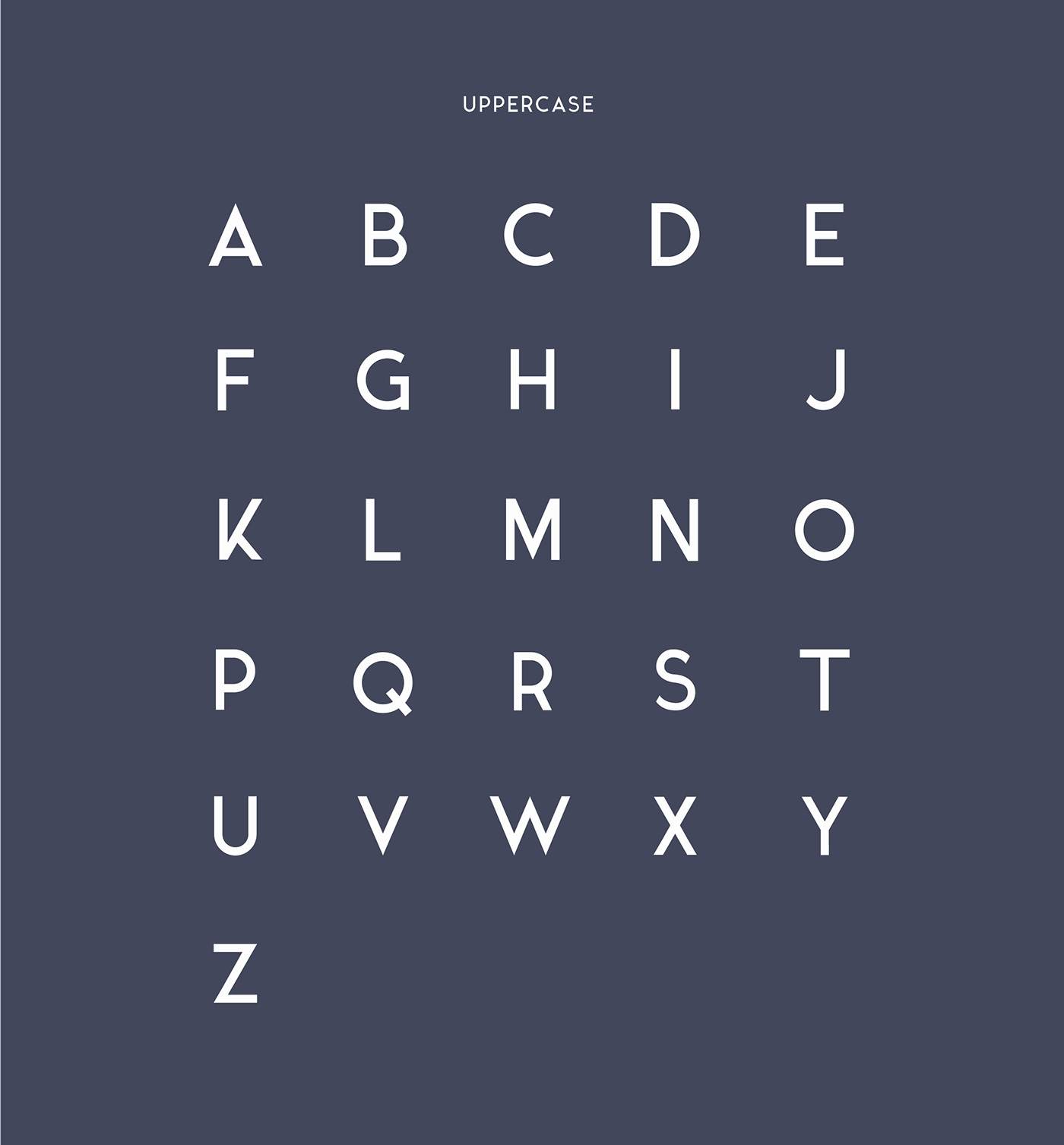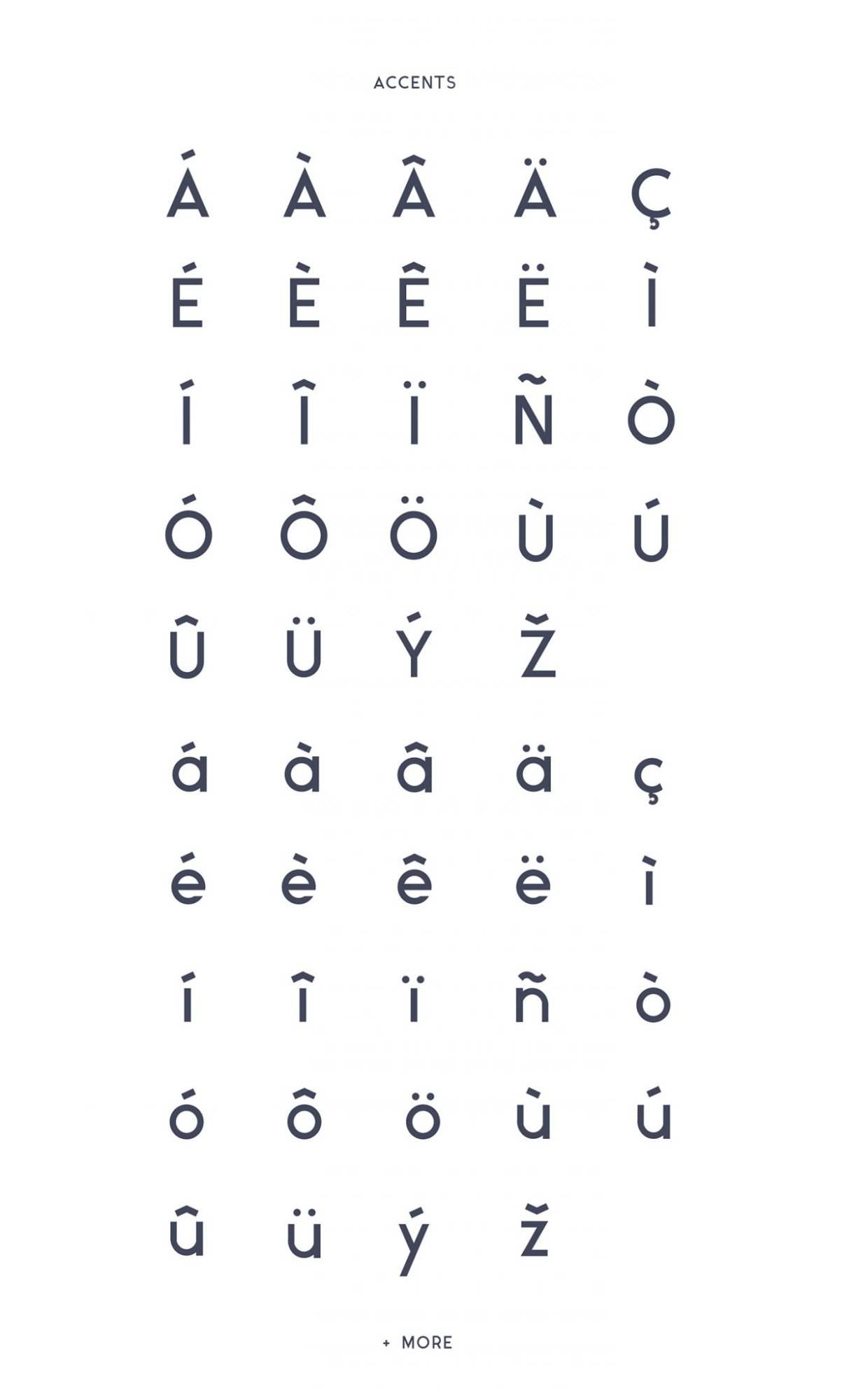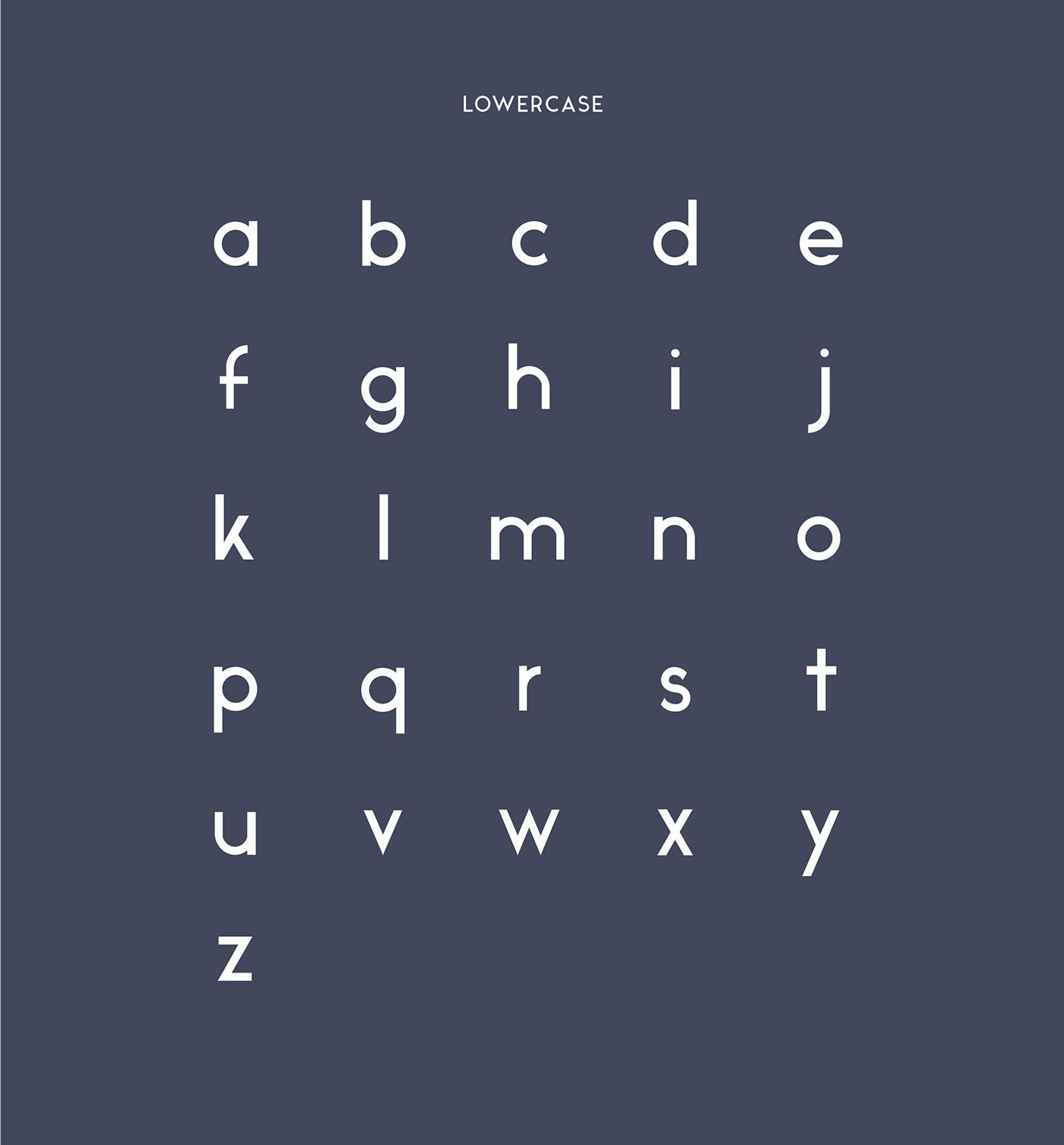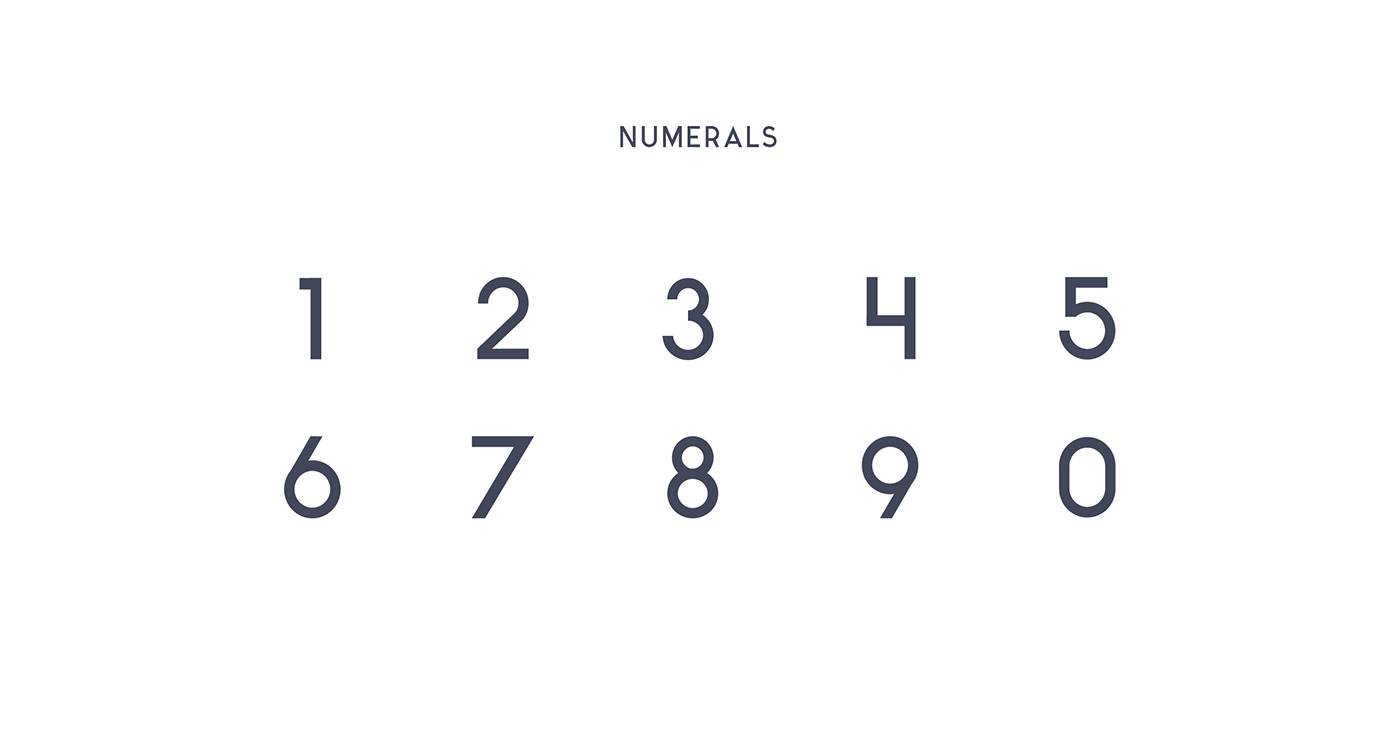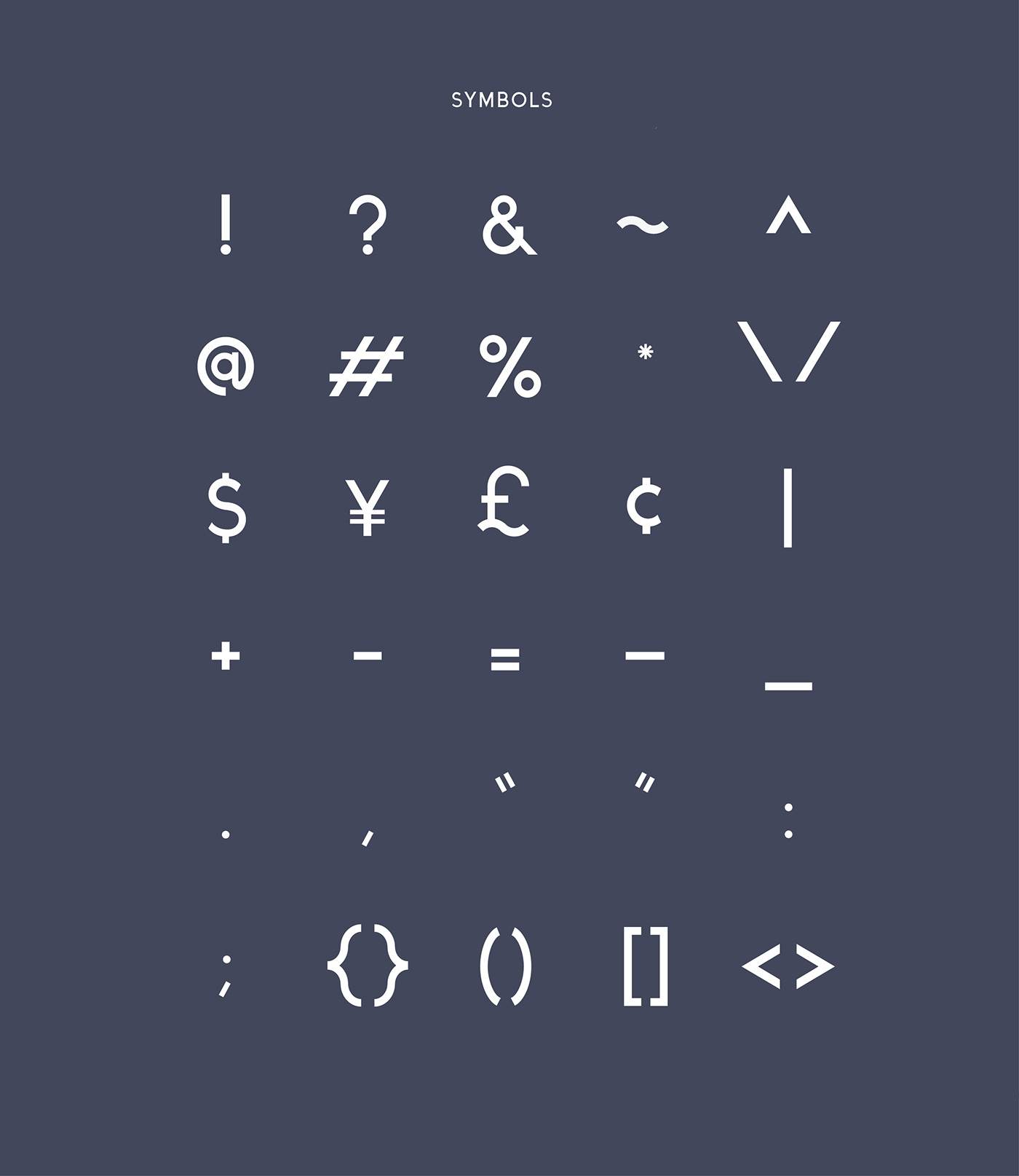
Fonts Free Font Of The Day #186 – Ikaros font by Yayang Apryana May 26, 2015 Ikaros font The font is a free featured by regular shapes and s minimal look. Designed and released by Matt Ellis. Download